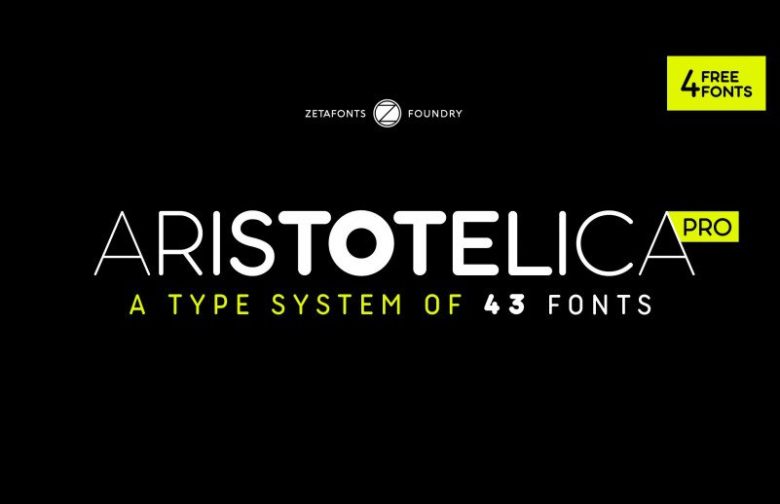
Aristotelica Pro Font Family
Aristotelica Pro is a modern sans serif font family with 43 styles font, it is the 2020 redesign of the rounded geometric sans. It’s a refreshing sans serif font that is ready for anything! This handy semi-condensed font includes clean & textured fonts, with oblique versions for each.
Introducing Aristotelica Pro Font Family! It’s was designed by Cosimo Pancini, Andrea Tartarelli and published by Zetafonts. Originally conceived as an exercise in restraint and simplicity, Aristotelica is typographic eulogy to the simple beauty of circular shapes, aptly named after the greek philosopher who pioneered formal logic.
It shows its strengths mostly in display uses and logo design, with a palette of moods ranging from the stark elegance of the uppercase hairline weights to the playful softness of the lowercase bold weights.
True to its universalist calling, it has however been developed in a variant text version that applies slight corrections to design and metrics to allow for better legibility in long body copy.
In Aristotelica Pro both the display and the text subfamilies have been complemented with a condensed version, though especially for mobile screens and other situations where space-saving is a concern.